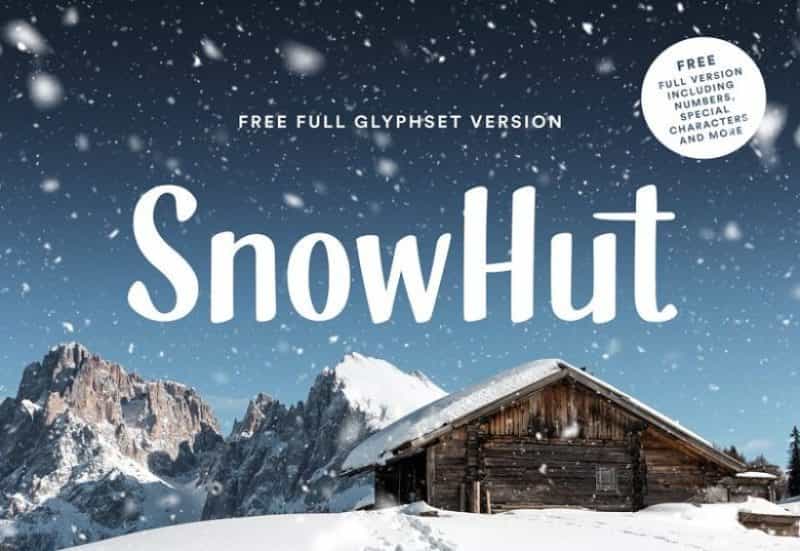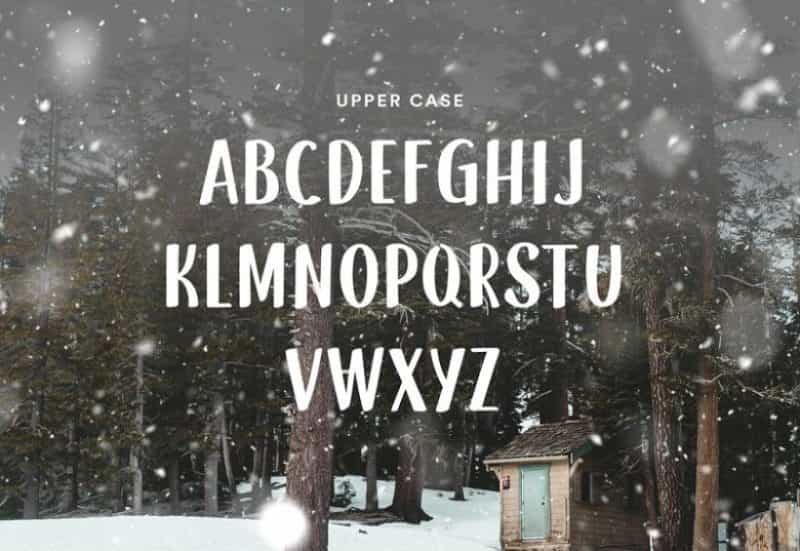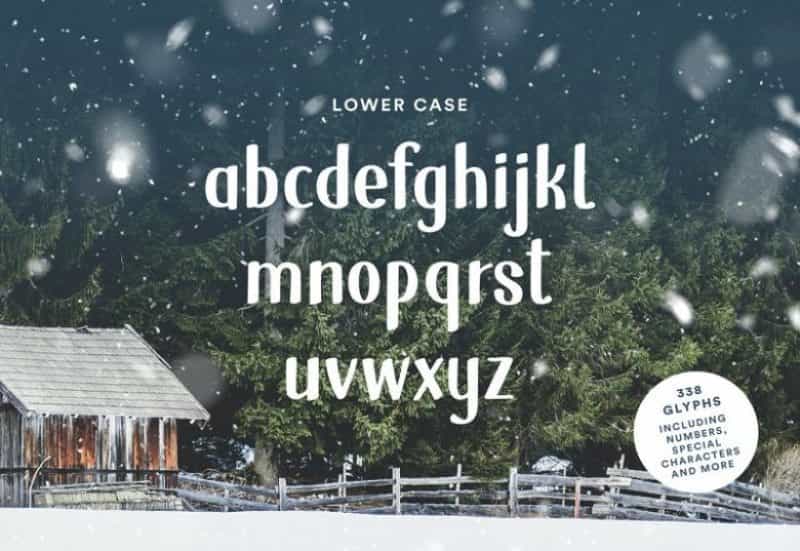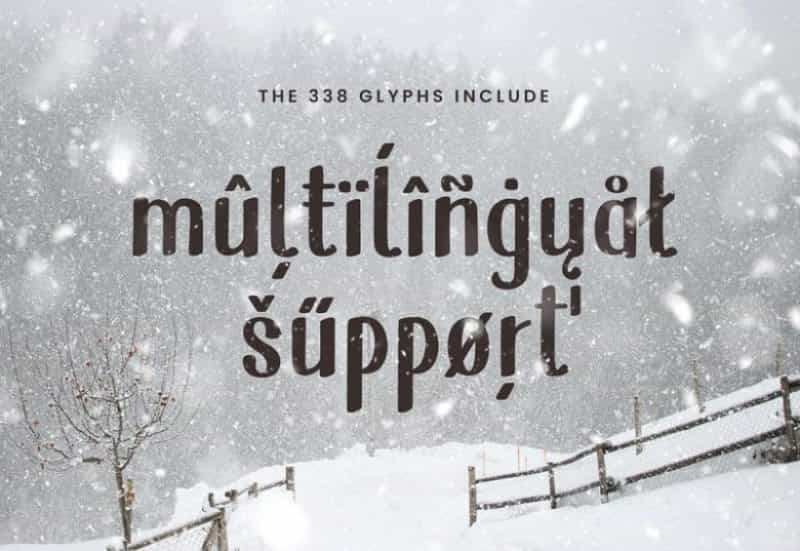
To match the spirit of the current season, we present to you our newest handwritten styled font. Whether you like winter or maybe more the summer, with “Snow Hut” you can do almost everything. The constructed yet organic appearance of the font makes it possible to employ the font with capital letters alone.